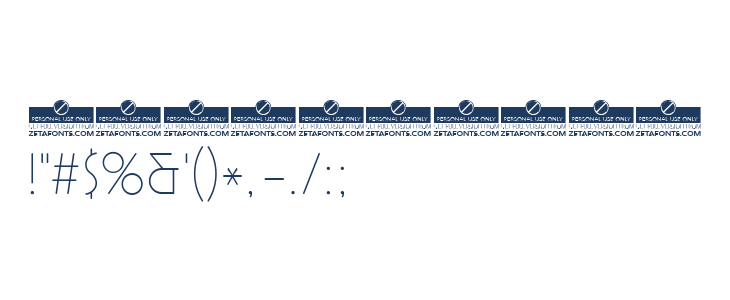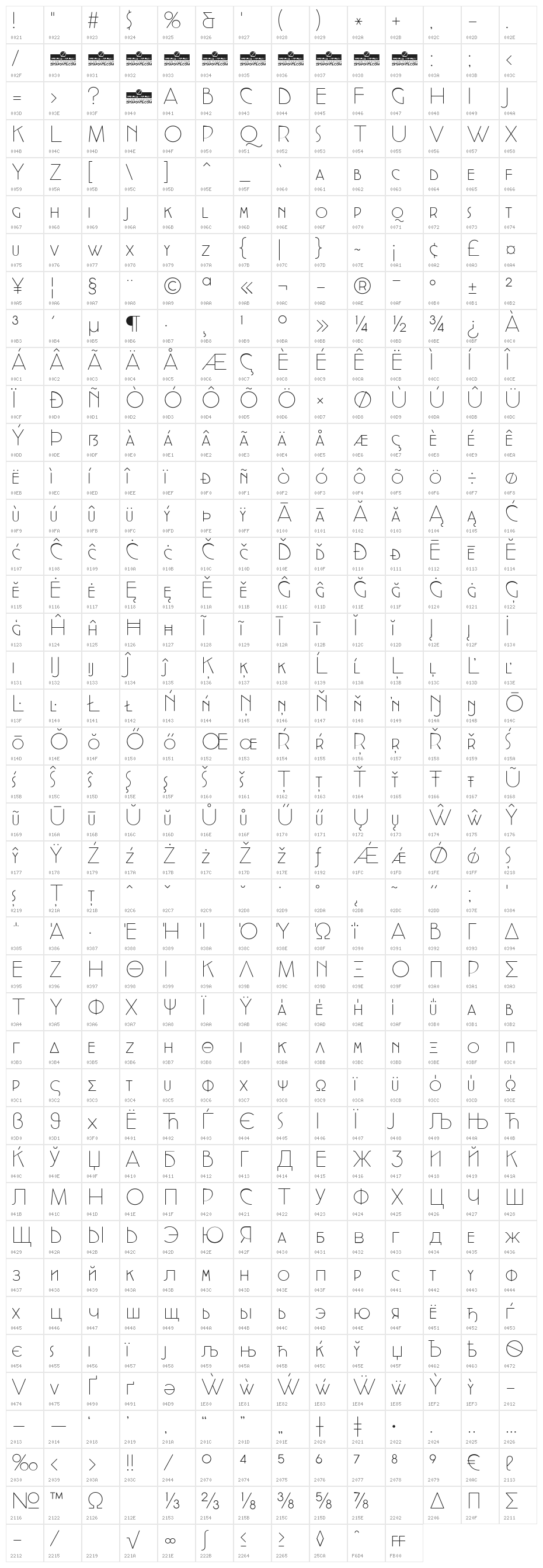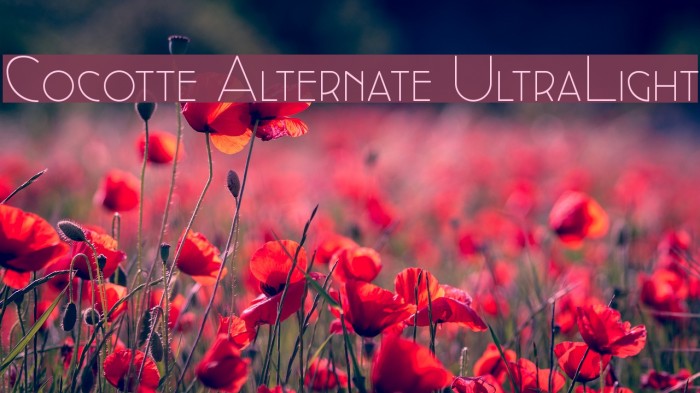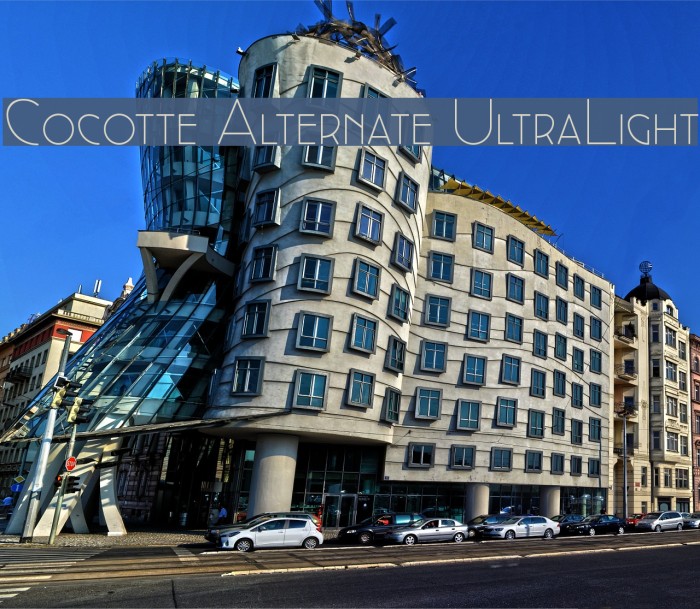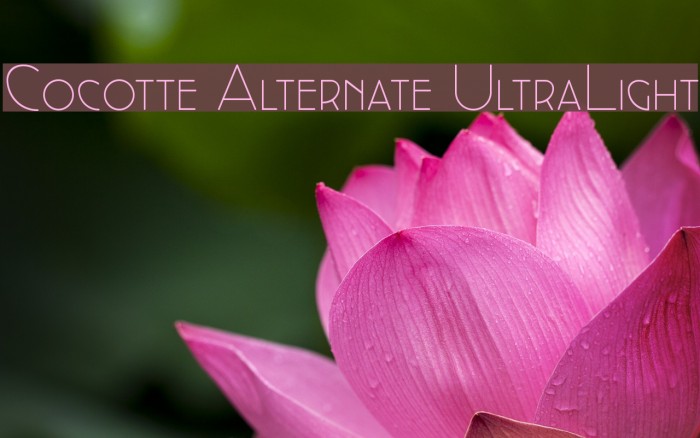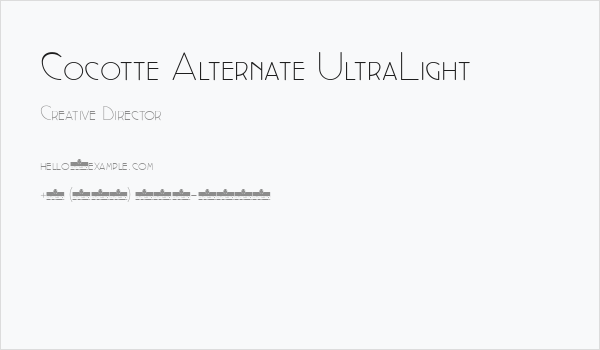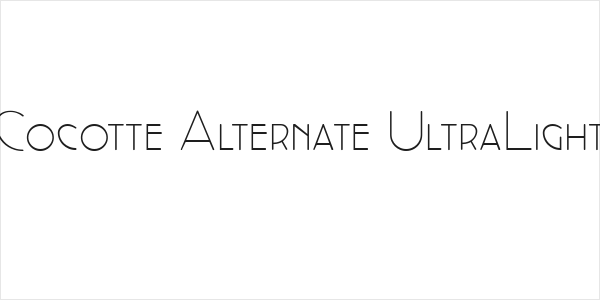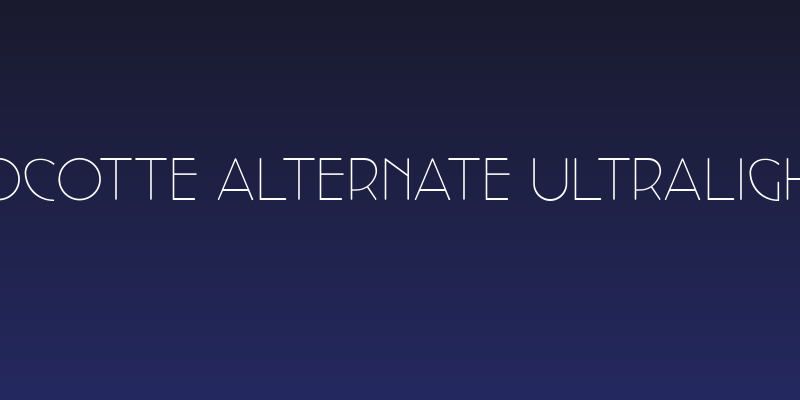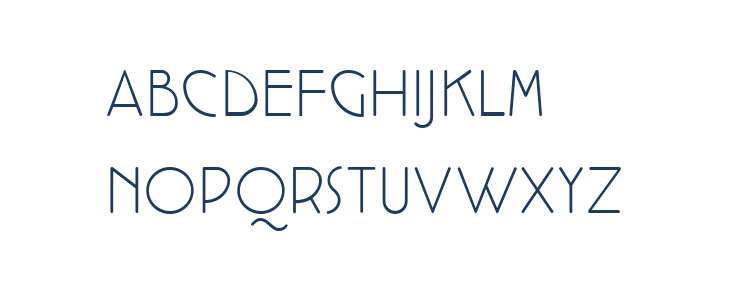
Cocotte Alternate UltraLight Font
Cocotte Alternate UltraLight Description
This font features a sleek and modern design with ultra-light strokes that give it an elegant and airy appearance. The characters are crafted with a geometric precision, showcasing clean lines and a minimalist aesthetic. The uppercase letters are tall and narrow, while the lowercase letters maintain a consistent style, enhancing readability. The numerals and special characters are designed to match the overall aesthetic, providing a cohesive look across all glyphs. This font's simplicity and sophistication make it suitable for a variety of design applications.